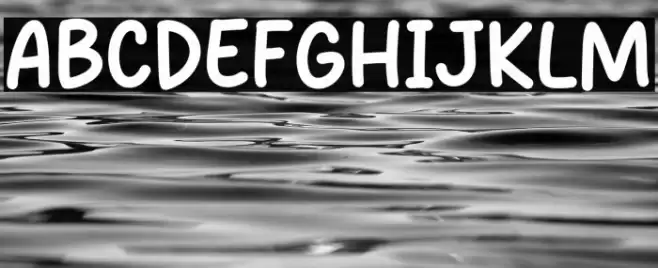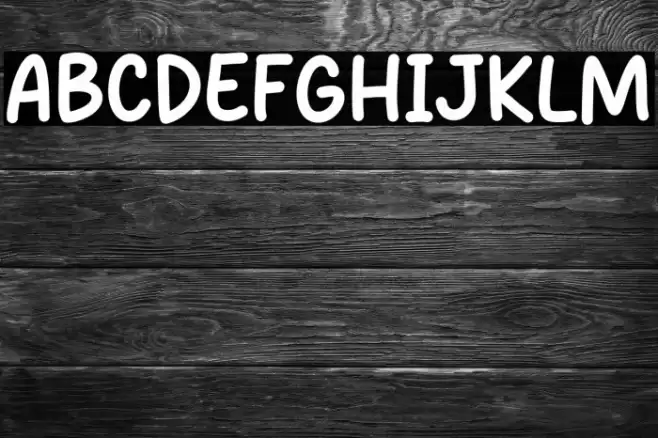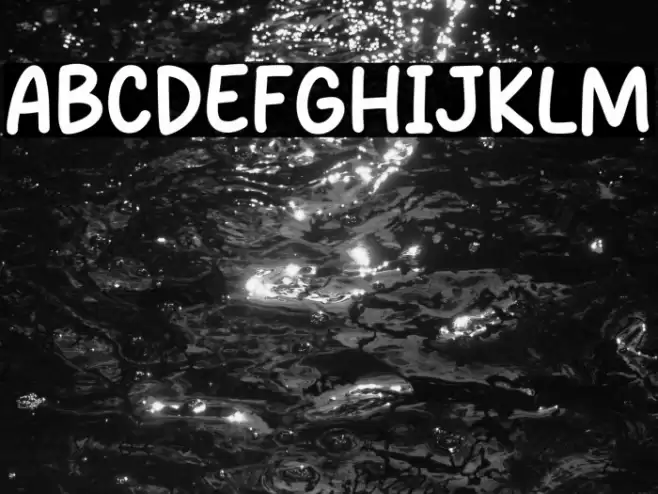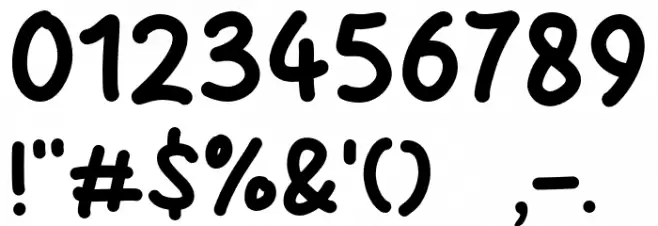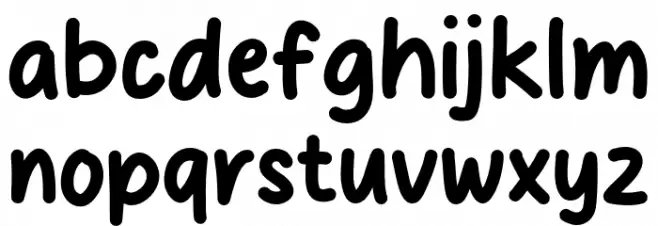
Cheese Matcha Font
Cheese Matcha Description
This playful and rounded font exudes a friendly and approachable vibe, characterized by its bold and smooth curves. The letters are uniformly thick, giving it a consistent and cohesive appearance. The uppercase and lowercase letters maintain a harmonious balance, while the numerals and special characters are designed with the same playful style. The overall look is casual and informal, making it ideal for projects that require a touch of whimsy and fun. Its readability is enhanced by the clear distinction between each character, making it suitable for both digital and print media.
A playful, rounded font with bold, smooth curves and a friendly vibe from Uncategorized fonts.
- Font: Cheese Matcha
- Proposed Projects: Ideal for children's books, playful branding, casual invitations, and social media graphics.
- Overall Style: Casual
- Use Case: Headlines, Logos, Informal Text
Cheese Matcha UPPERCASE
Cheese Matcha LOWERCASE
Cheese Matcha OTHER CHARS